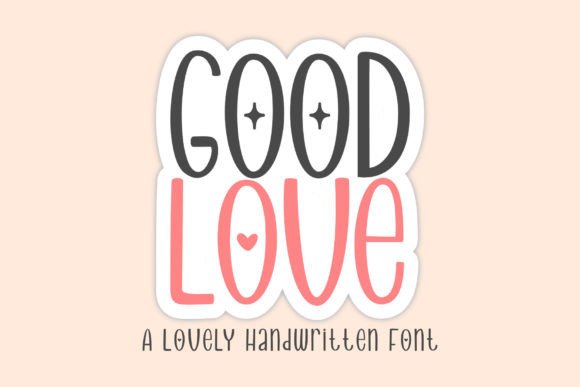
Discover "Good Love" - A Script Font Manifestation of Subtle Beauty in Design
Immerse yourself in the world of captivating aesthetics with "Good Love," an extraordinary script font curated by Typerex. Designed to inspire and allure, "Good Love" possesses an inherent charm that breathes life into every letter. Each stroke exudes a natural flair that emulates the effortless elegance of handwritten notes.
Experience the versatility of a font that seamlessly adapts to an array of creative endeavors. Whether you're crafting a sweet love letter, expressing gratitude with a heartfelt thank-you card, or composing a motivational quote to ignite change, "Good Love" serves as the perfect companion. Its minimalistic design seamlessly integrates into logos, social media posts, and various digital platforms, captivating your audience with its timeless appeal.
With "Good Love" as your font of choice, you'll discover a world of endless possibilities. Transform your designs into works of art, leaving a lasting impression on all who encounter your creations. Its simple yet striking presence will add a touch of allure to any project, whether personal or professional.